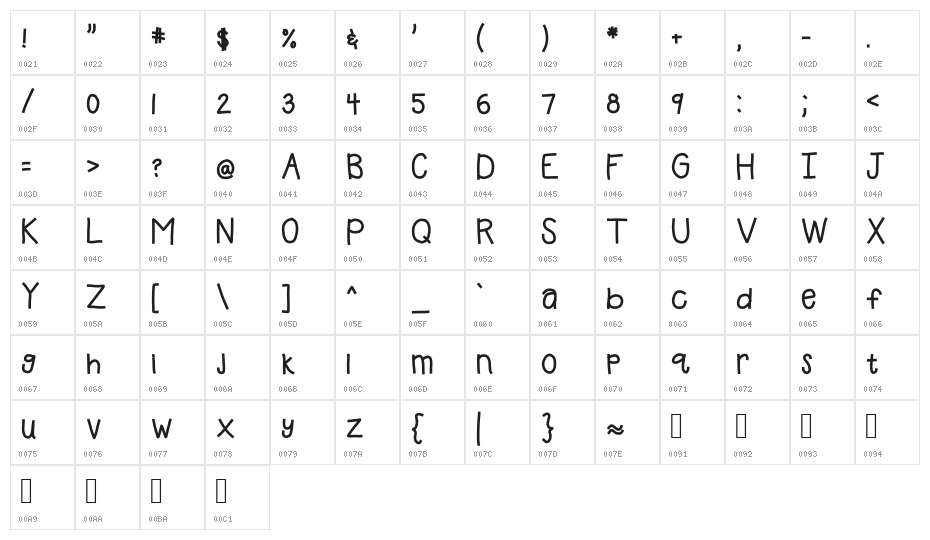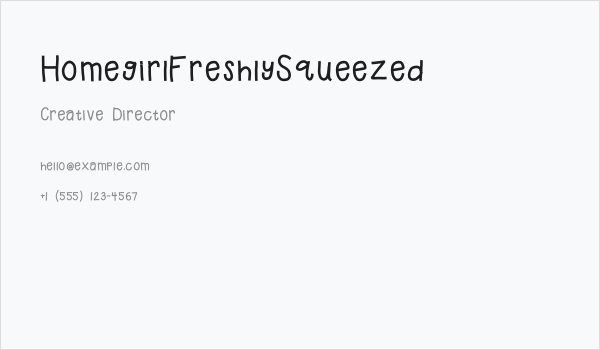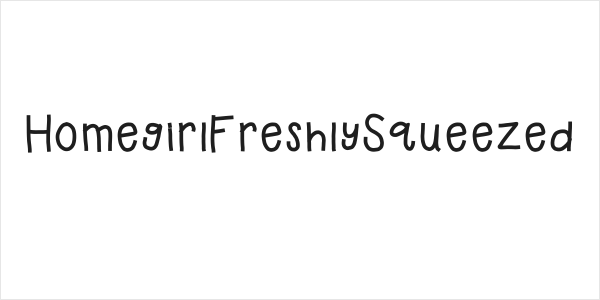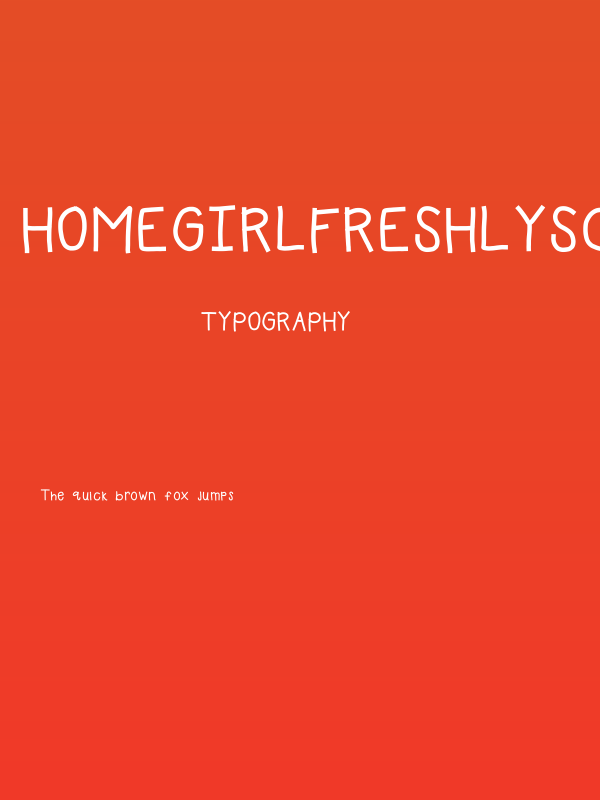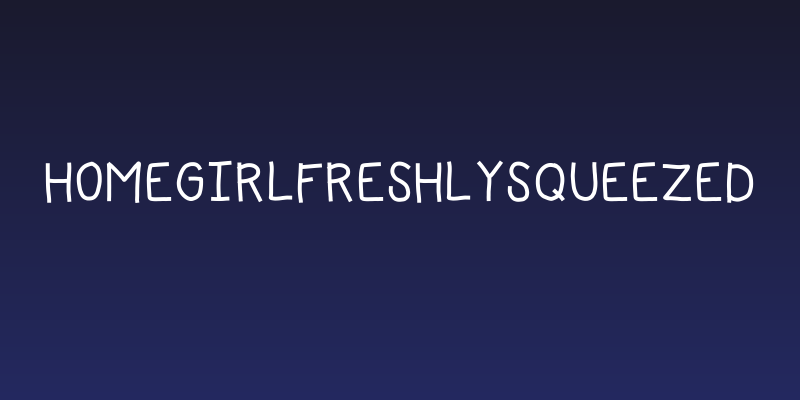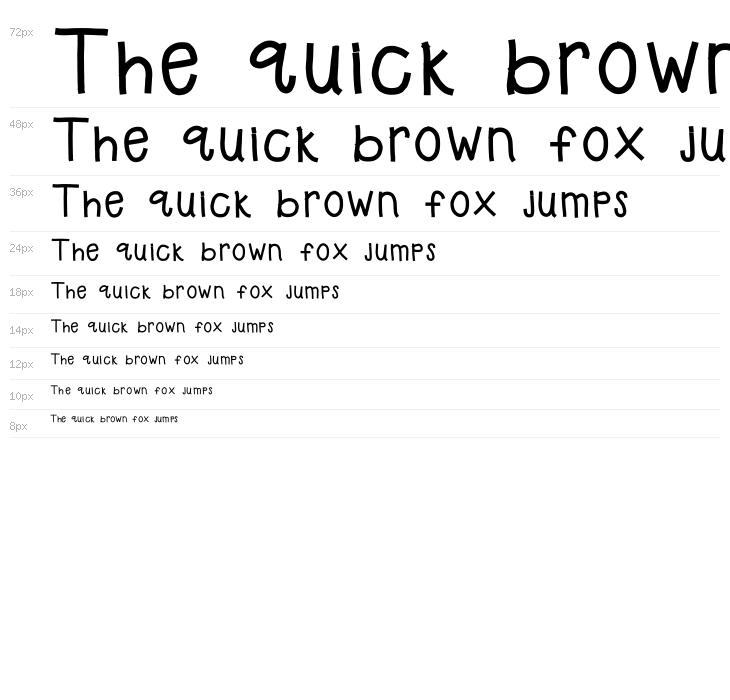
HomegirlFreshlySqueezed Font
HomegirlFreshlySqueezed Description
This font features a playful and casual handwritten style, characterized by its uneven strokes and slightly irregular shapes. The uppercase letters are bold and slightly tilted, giving a dynamic and energetic feel. The lowercase letters maintain a consistent style, with some letters like 'g' and 'y' having distinctive loops that add to the font's charm. Numbers are clear and easy to read, while the special characters retain the same playful aesthetic. Overall, this font exudes a friendly and approachable vibe, making it suitable for informal and creative projects.
HOMEGIRLFRESHLYSQUEEZED UPPERCASE
HOMEGIRLFRESHLYSQUEEZED LOWERCASE
HOMEGIRLFRESHLYSQUEEZED OTHER CHARS